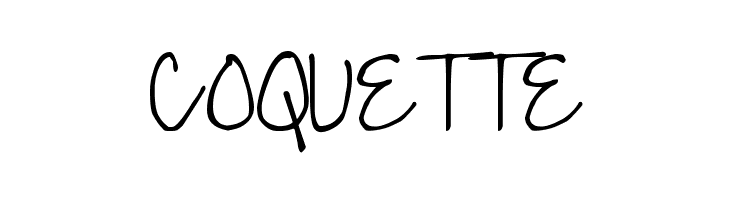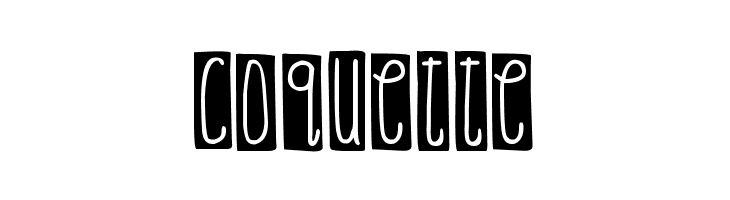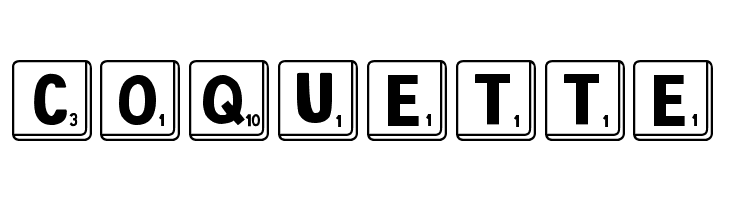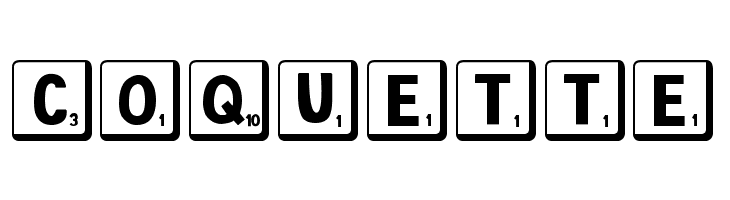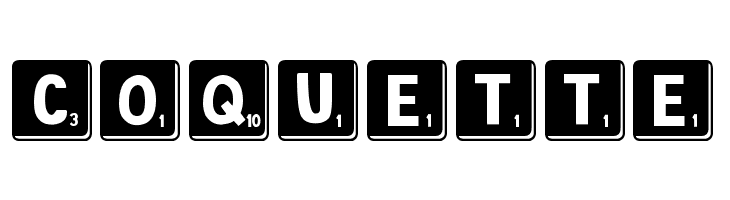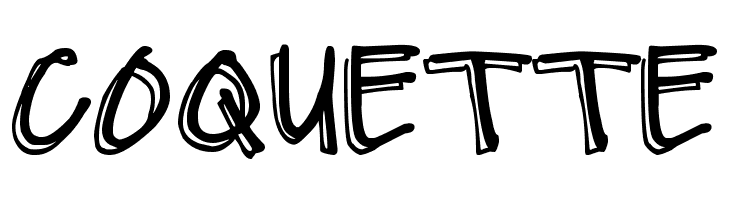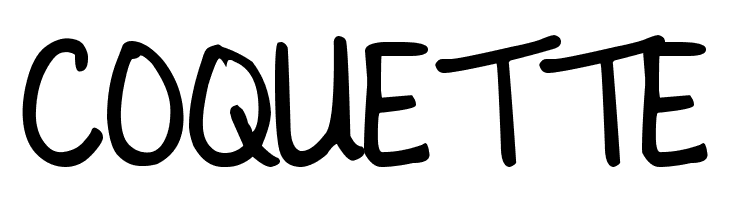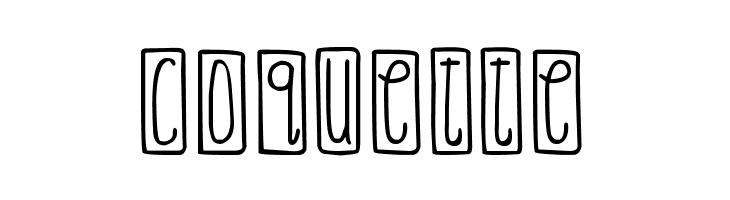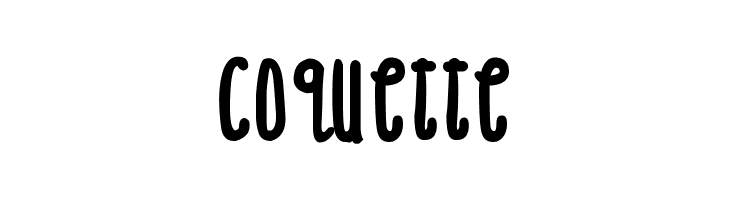
A bold, hand-drawn font with whimsical characters enclosed in rectangular blocks.
A playful, bold font with rounded, thick strokes and a whimsical touch.
A playful, hand-drawn font with outlined characters in a whimsical style.
A playful, handwritten font with a casual and approachable style.
A playful font styled like letter tiles from a word game, featuring bold characters within bordered squares.
A playful, tile-based font inspired by classic word games.
A playful, game-inspired font with characters on square tiles.
A playful, bold handwritten font with a casual and creative vibe.
A playful, casual handwritten font with a lively and dynamic style.
A bold, shadowed handwritten font with a playful and informal style.